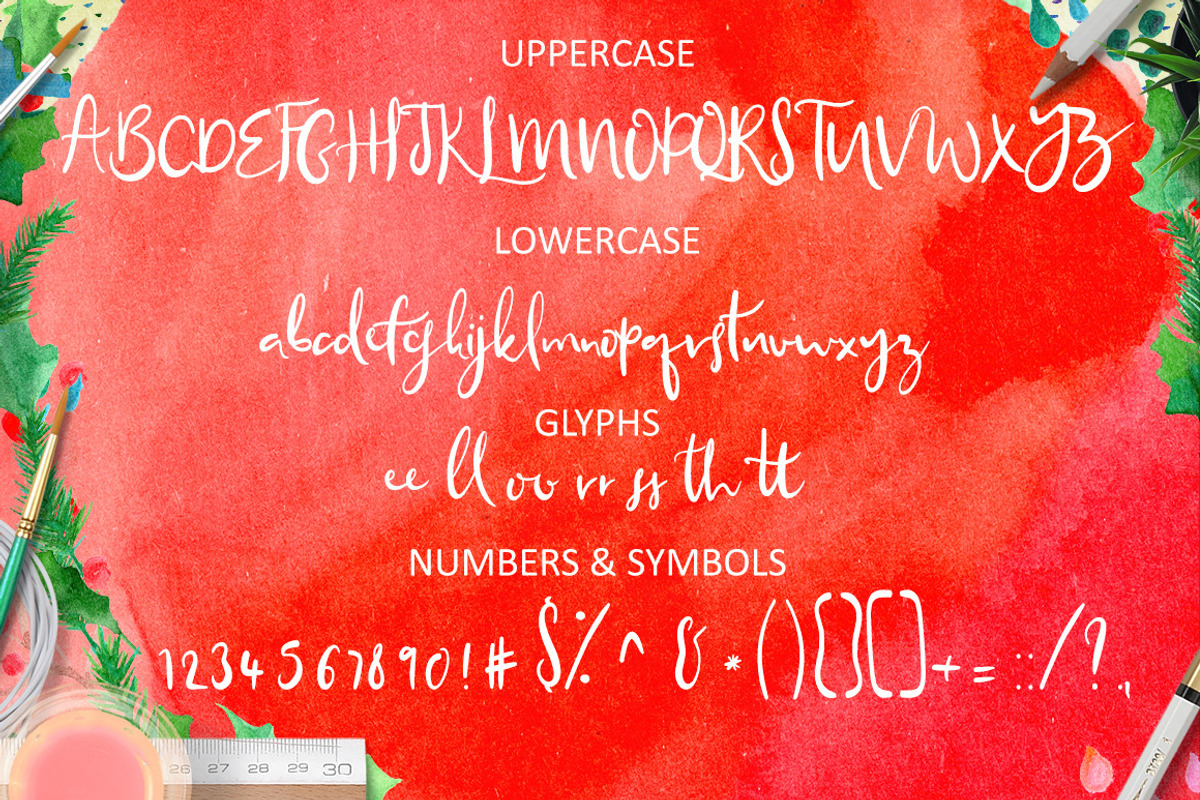
Blissfully Script Font
Blissfully Script Font by Creativeqube Design is a font selected for branding, posters, packaging, typography.
Why Blissfully Script Font is worth a look
Blissfully Script Font by Creativeqube Design fits naturally into Branding, posters, packaging, typography.